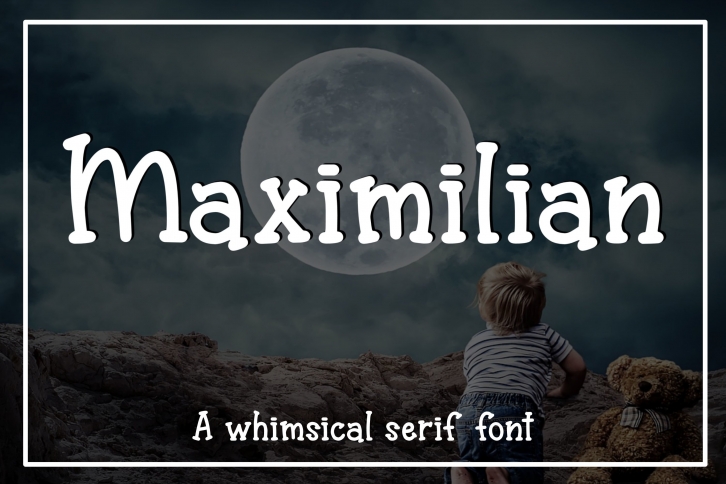
Maximilian is a great font that was designed by Stacys Digital Designs. Imagine the amount of combinations you can create using this font! The archive is 11.36 MB and it was released on April 7, 2020. Maximilian looks beautiful on wedding invitations, greeting cards, logos, posters, labels, t-shirt designs, logos, business cards and is perfect for use in ink or watercolor works, fashion, magazines, packaging and food menus, children's books and more!